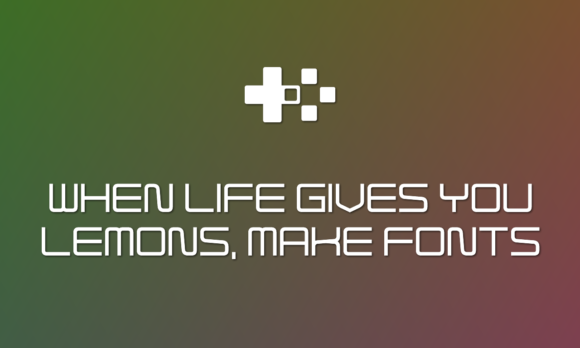
Introduction to Elysian Fields Font
Elysian Fields is an incredibly cool display font.
With a modern yet whimsical style, this font has the potential to bring each of your creative ideas to the highest level .
Elysian Fields Font offers exceptional quality and versatility, making it a valuable addition to your design toolkit. Whether you’re creating for personal projects or commercial use, Elysian Fields Font delivers professional results.